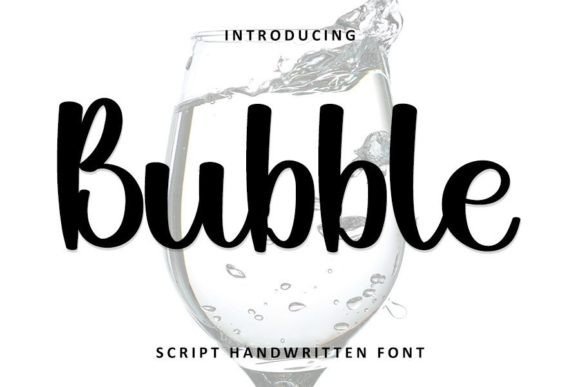
The Enchanting World of Bubble Font: A Designer’s Delight
I’ll never forget the moment I stumbled upon the perfect font for a client’s wedding invitation project. I had been searching for what felt like an eternity, trying out font after font, but nothing seemed quite right. That was until I discovered Bubble Font – a beautiful, handwritten script that instantly captured the elegance and whimsy of the occasion. In this article, I’ll share my love affair with Bubble Font, its unique features, and provide a comprehensive guide on how to make the most of this stunning font.
An Honest Review of Bubble Font
So, what makes Bubble Font so special? Let’s dive into the good stuff! 😊
• ✨ Elegant and refined: Bubble Font exudes sophistication and poise, making it perfect for high-end projects.
• ✅ Highly legible: Despite its ornate nature, Bubble Font remains surprisingly easy to read, even at smaller sizes.
• 💫 Unique character: The font’s distinctive bubble-like flair sets it apart from more traditional scripts.
Of course, no font is perfect, and Bubble Font has a few minor quirks to be aware of:
• 🤔 Limited use in very small sizes: While generally legible, Bubble Font can become a bit tricky to read when reduced to extremely small sizes (e.g., below 10pt).
• ⚠️ Some glyphs may require manual adjustment: Depending on your design, you might need to tweak certain glyphs to ensure optimal spacing and alignment.
The Story Behind Bubble Font
While the true origins of Bubble Font might be shrouded in mystery, it’s easy to imagine a talented designer, inspired by the elegance of handwritten scripts, creating this beautiful font. Perhaps they were experimenting with different letterforms, playing with the curves and lines of traditional calligraphy, until Bubble Font was born – a true masterpiece of modern typography.
Font Name Bubble Font
Author Kongsi.Co
What makes Bubble Font so special? Bubble Font’s unique blend of elegance, legibility, and whimsy makes it a standout choice for designers and crafters.
Is Bubble Font suitable for body text? While Bubble Font is beautiful, it’s best suited for headlines, titles, and short paragraphs. For longer body text, a more traditional font might be more readable.